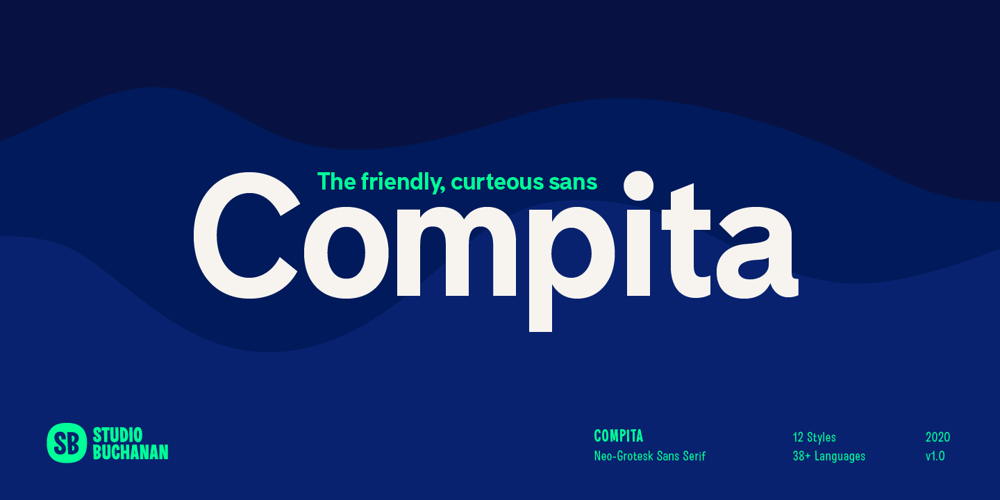
Compita Font Family was designed by Jonathan Gibson and published by Studio Buchanan. Compita contains 12 styles and family package options. Compita is a Neo-Grotesk(ish) typeface that started life as a love-letter to Berthold’s classic. But for every rigid, Neue-Haasism, there exists an equal and opposite amount of humanist attributes – along with a deliberate dose of creative license.It has some over-emphasised features and terminal endings which help to create its friendly personality, but sits them on a slightly condensed overall width. Together they help balance each other out, creating a face that feels both affable and professional. Aff-essional perhaps?The character set contains everything the modern day designer needs, including diacritic support for over 30 languages. And It’s packed full of the usual opentype features (that most will probably ignore) – Small caps, multiple number sets, and discretionary ligatures, to name just a few.Whether it’s deployed as a display face, or as the dependable choice for text, Compita is useable across multiple disciplines. Set in online, on screen or in print – it’s proof that not everything has to be Montserrat or Raleway…